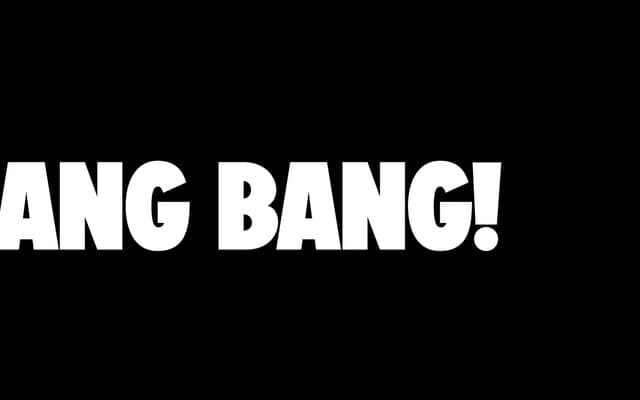
Bang Bang!
A thick, bold display face that takes a grotesque foundation and pushes the letterforms toward something more characterful and expressive.
Built on a grotesque skeleton but deliberately departing from it, the typeface trades neutrality for personality in its letter construction. The weight sits firmly in the heavy end, making it suited to headlines, posters and branding where a grotesque feel is wanted without the restraint of a conventional one. Available for commercial use with an add-on licence.
Described by the foundry as a thick, bold, grotesque-influenced display face with deliberately personalised and livened letterforms that deviate from strict grotesque conventions.